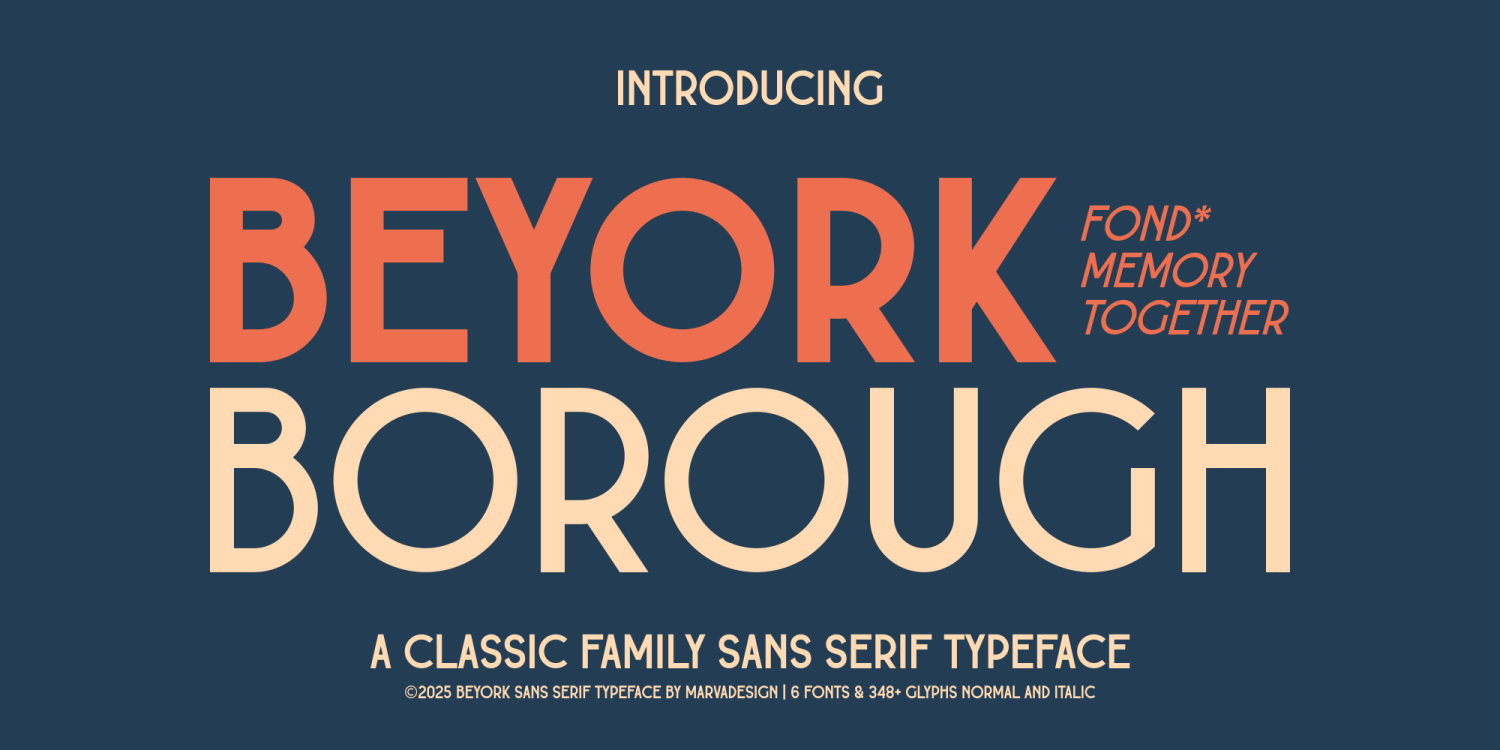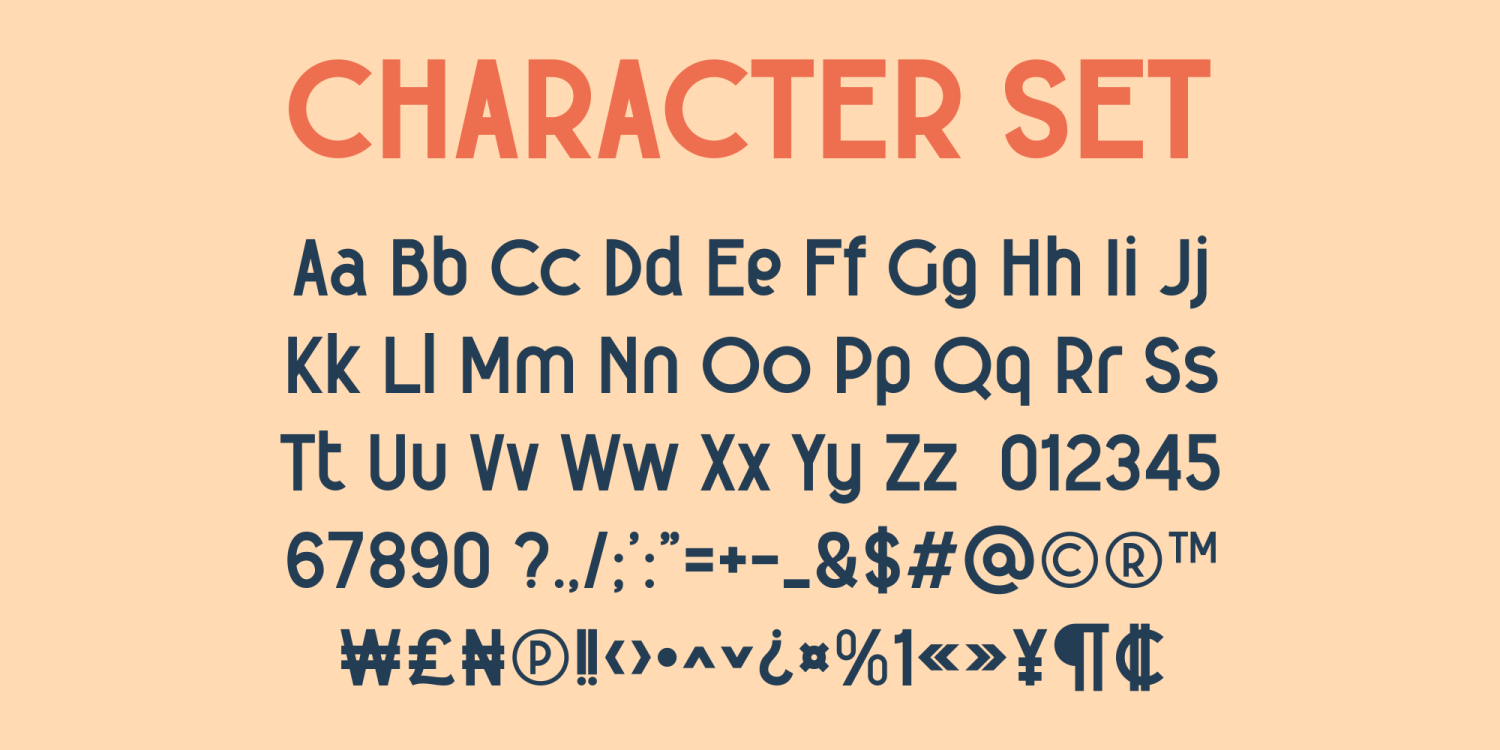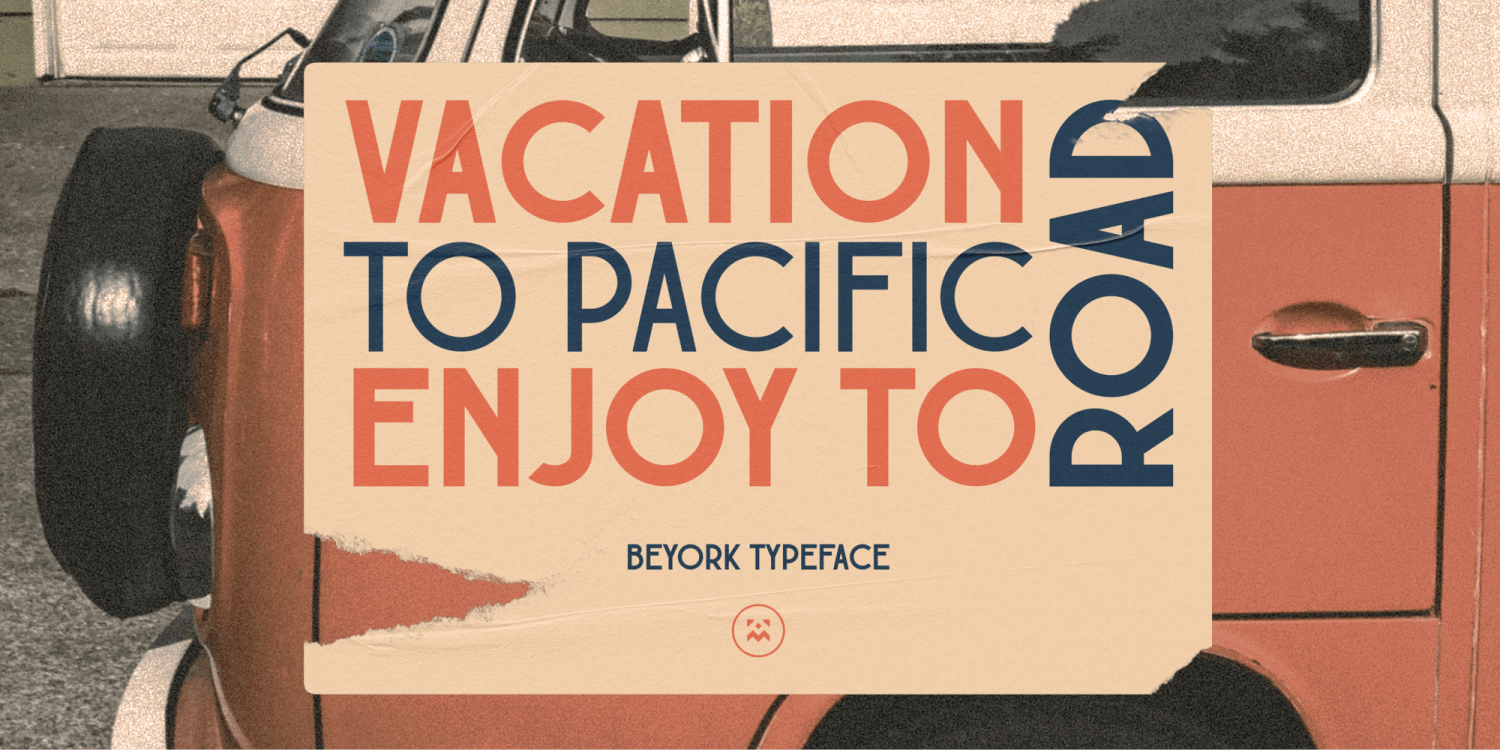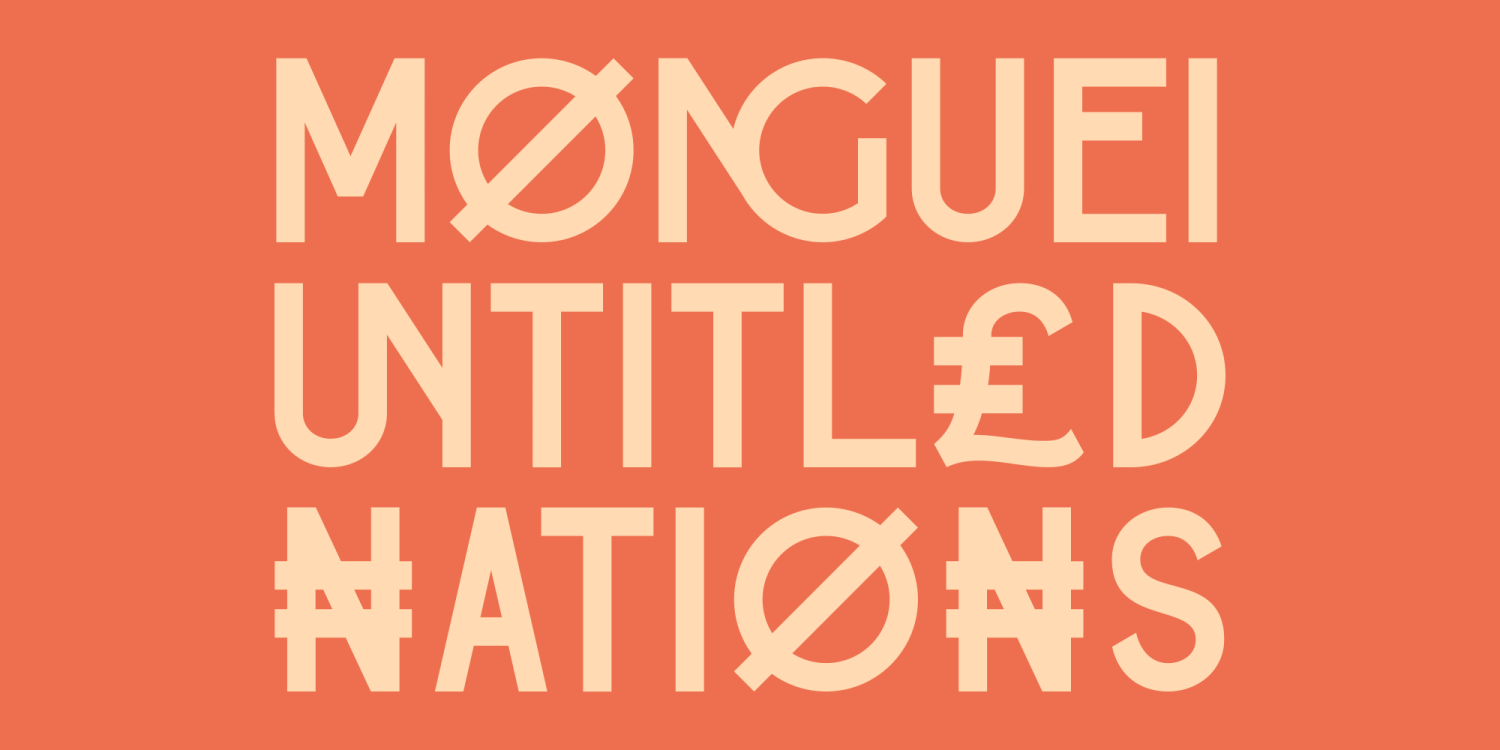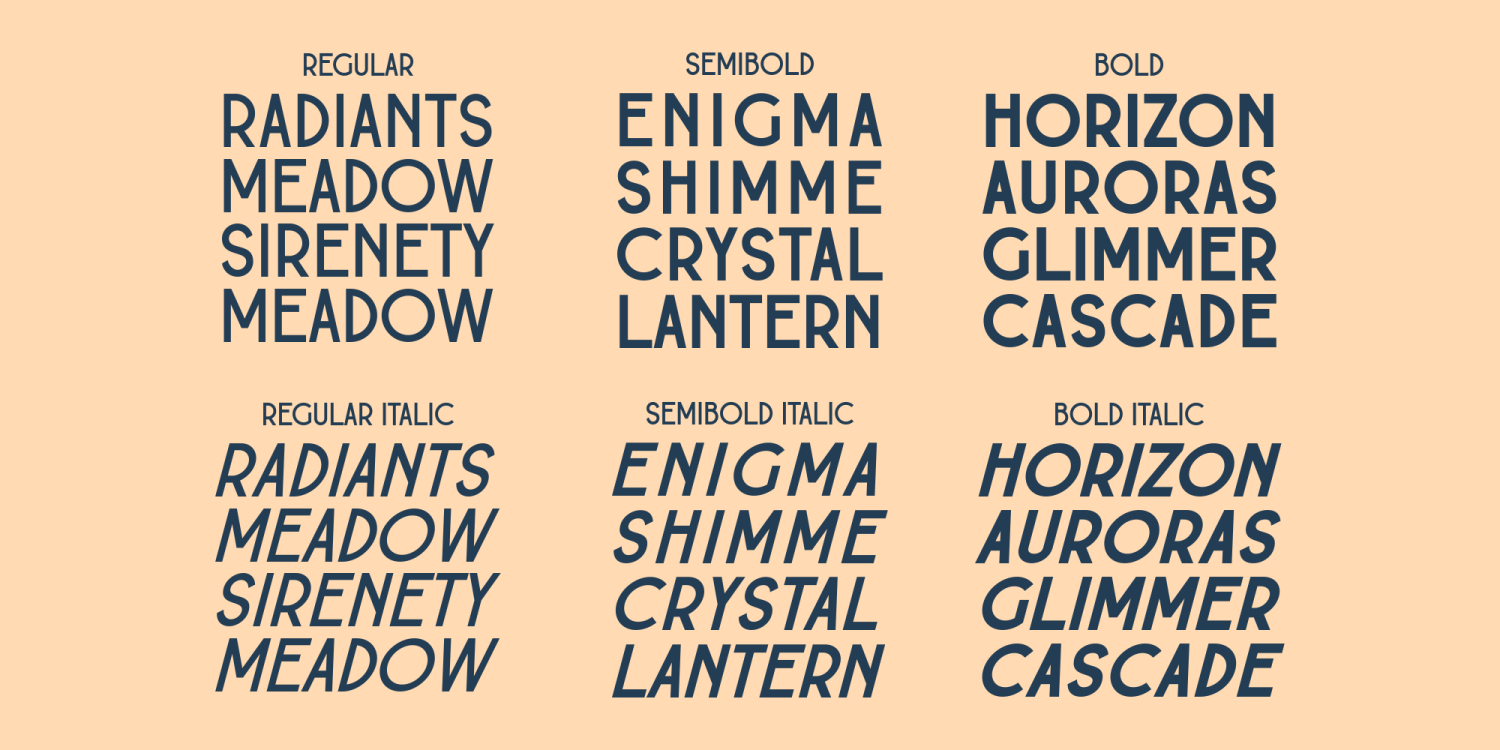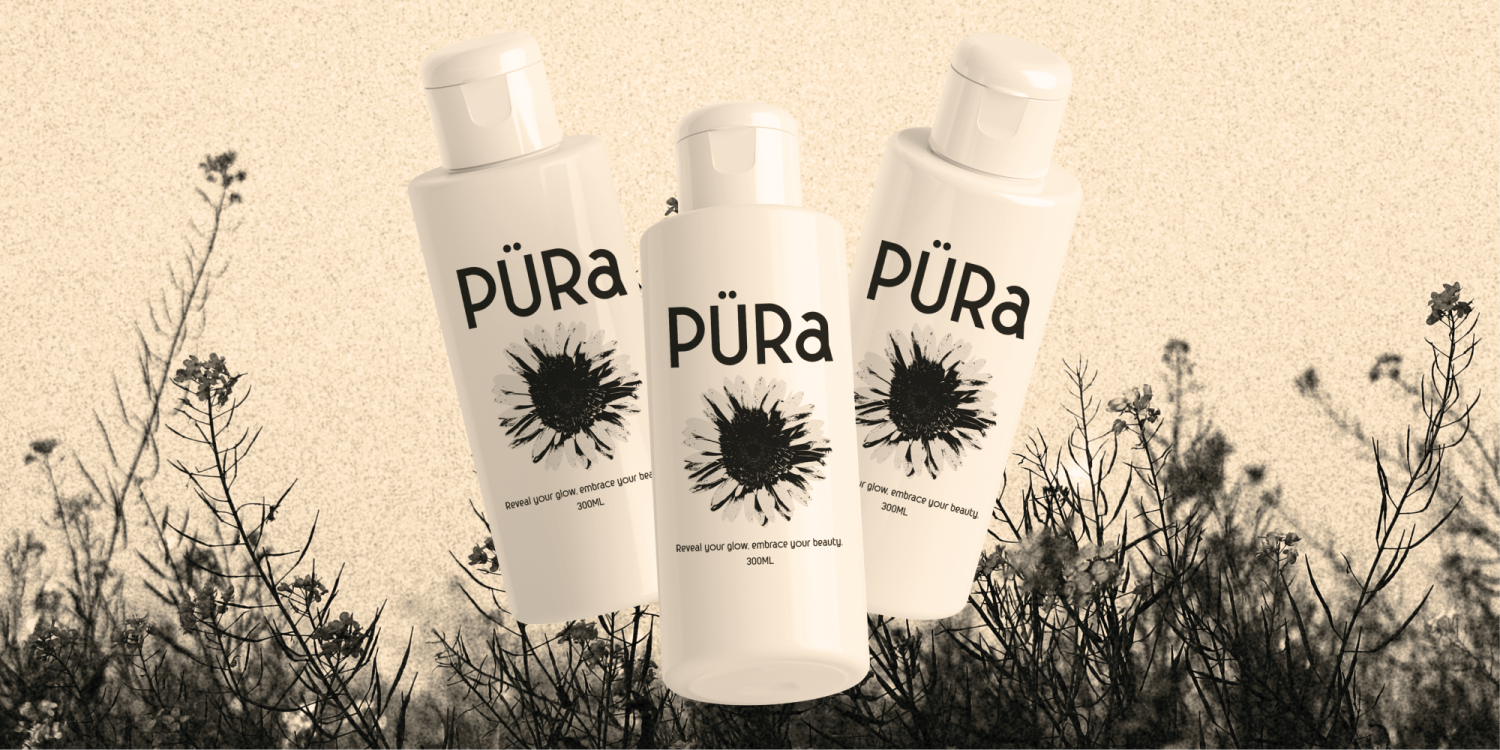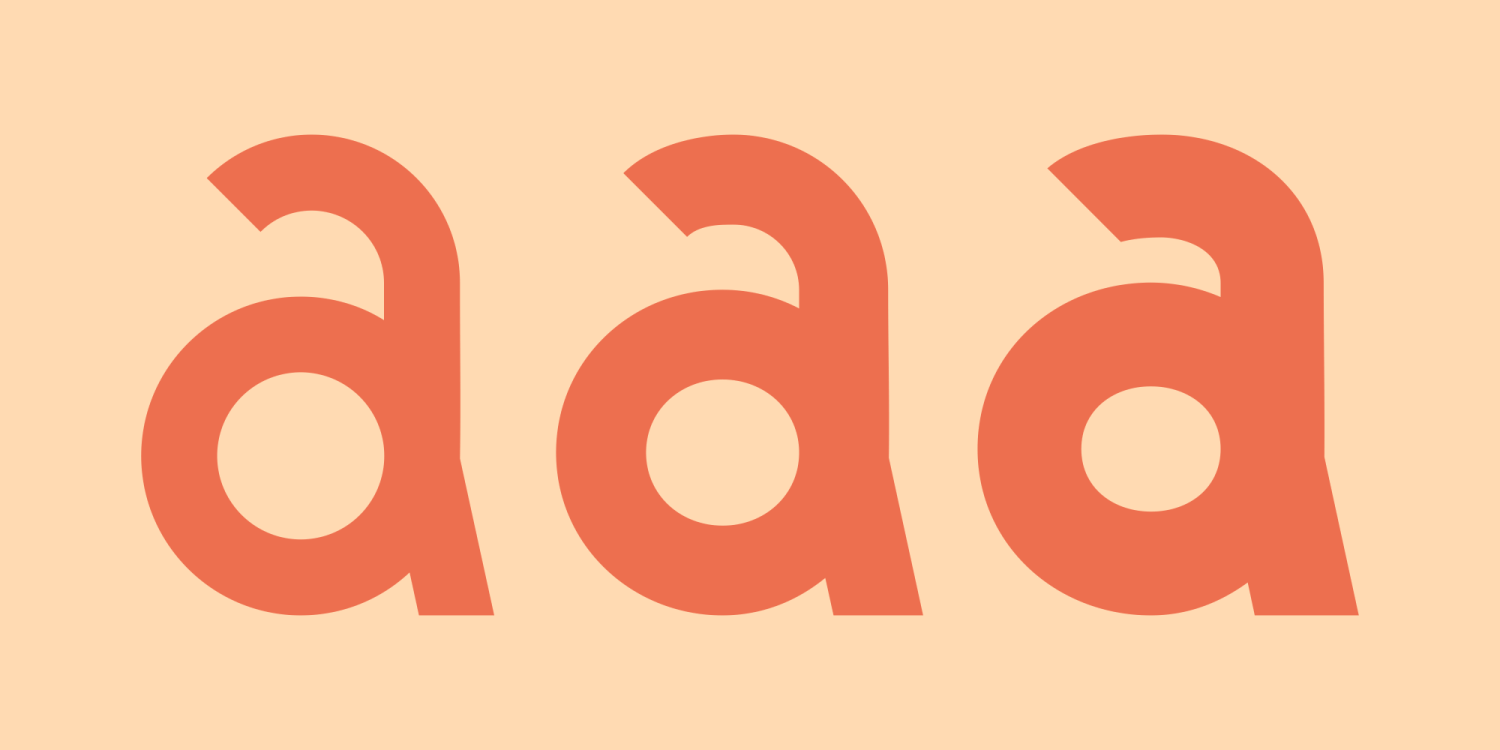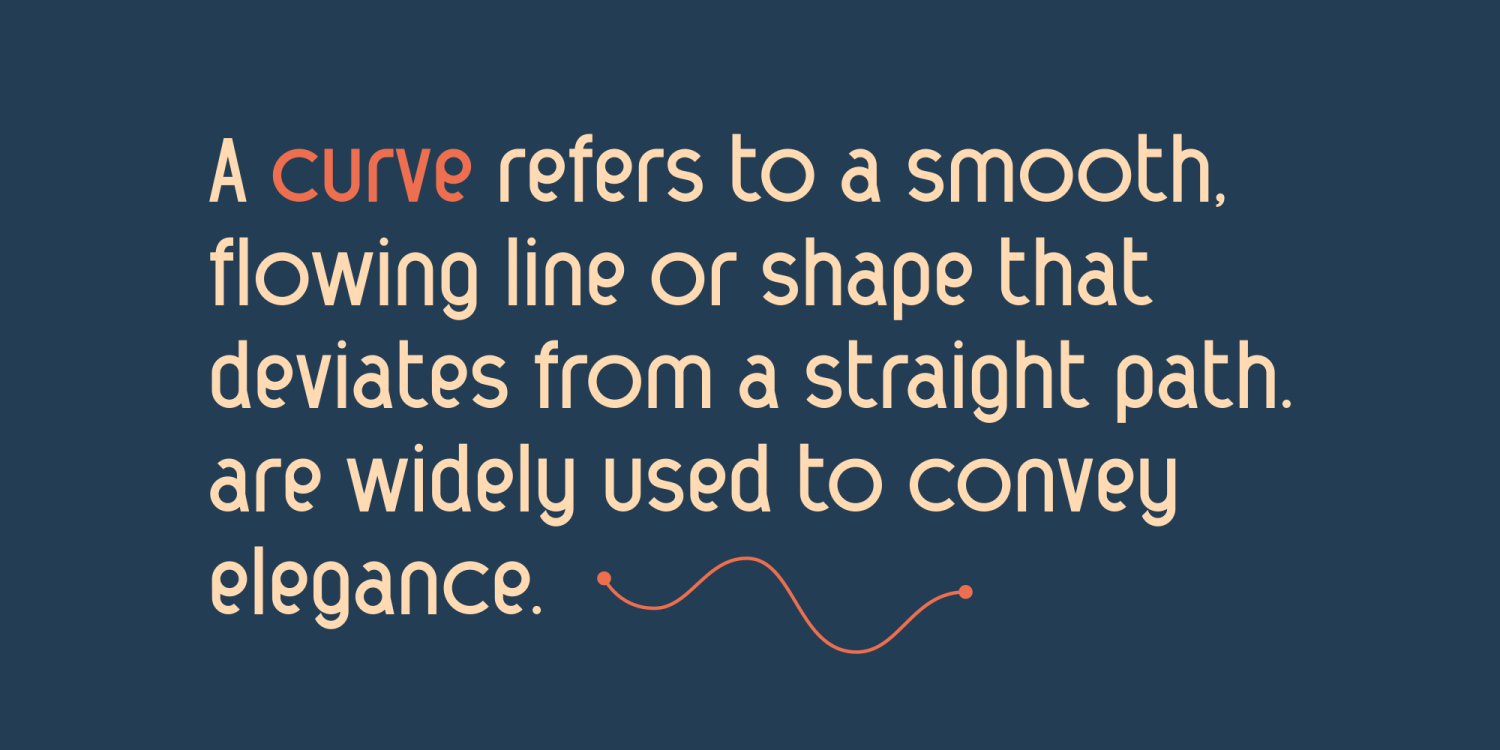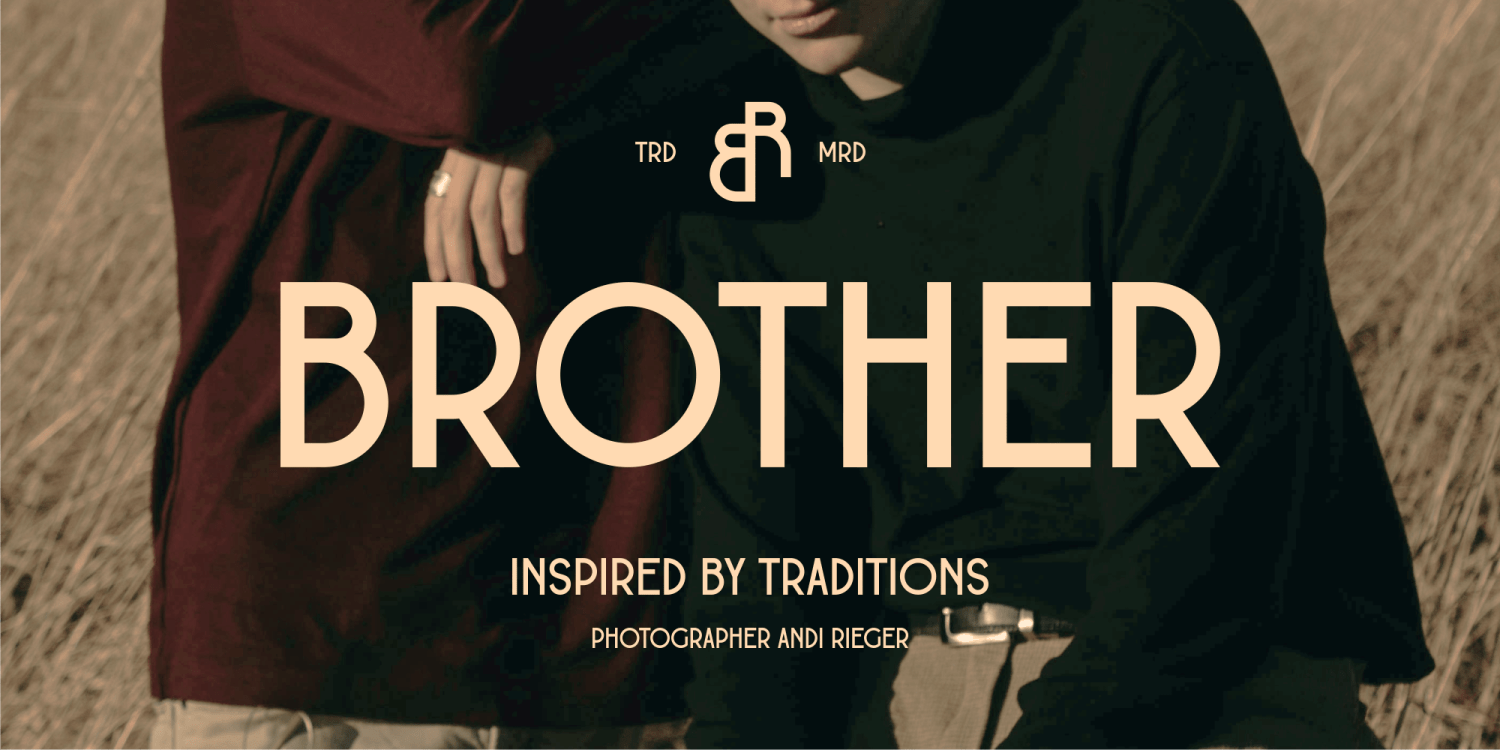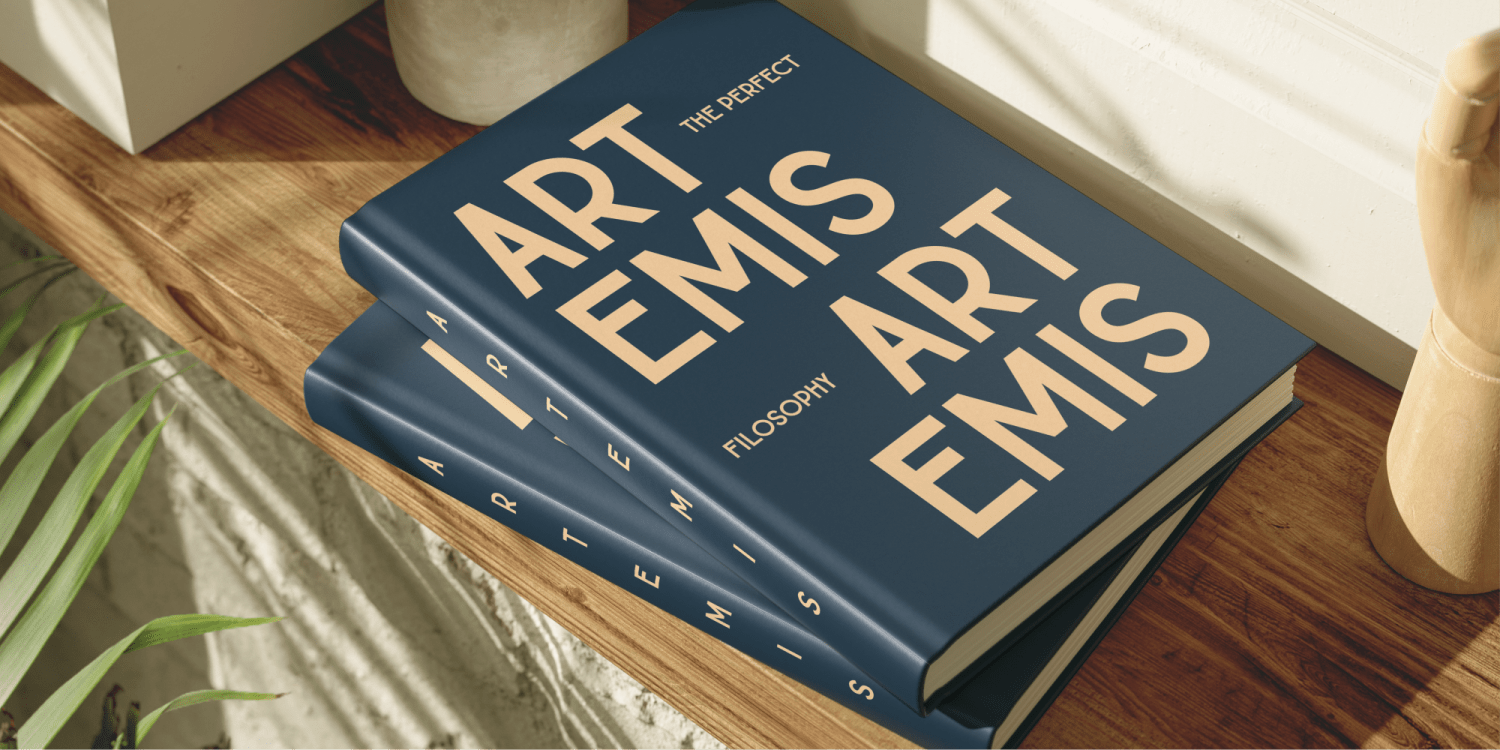
Beyork
Font Family by Marvadesign
Introducing New Brand Typeface Beyork is a Classic Sans Serif font that embodies elegance and strength, making it an excellent choice for sophisticated designs. The font family offers six distinct styles: Regular, Italic, Semibold, Semibold Italic, Bold, and Bold Italic, providing versatility for a wide range of applications. Its design strikes a balance between modernity and timelessness, with a unique charm that sets it apart. The lowercase letters feature distinctive characteristics, giving the font a personality that enhances readability and visual appeal. Beyork is ideal for branding, editorial design, logos, and high-end marketing materials, ensuring your message is conveyed with clarity and elegance.